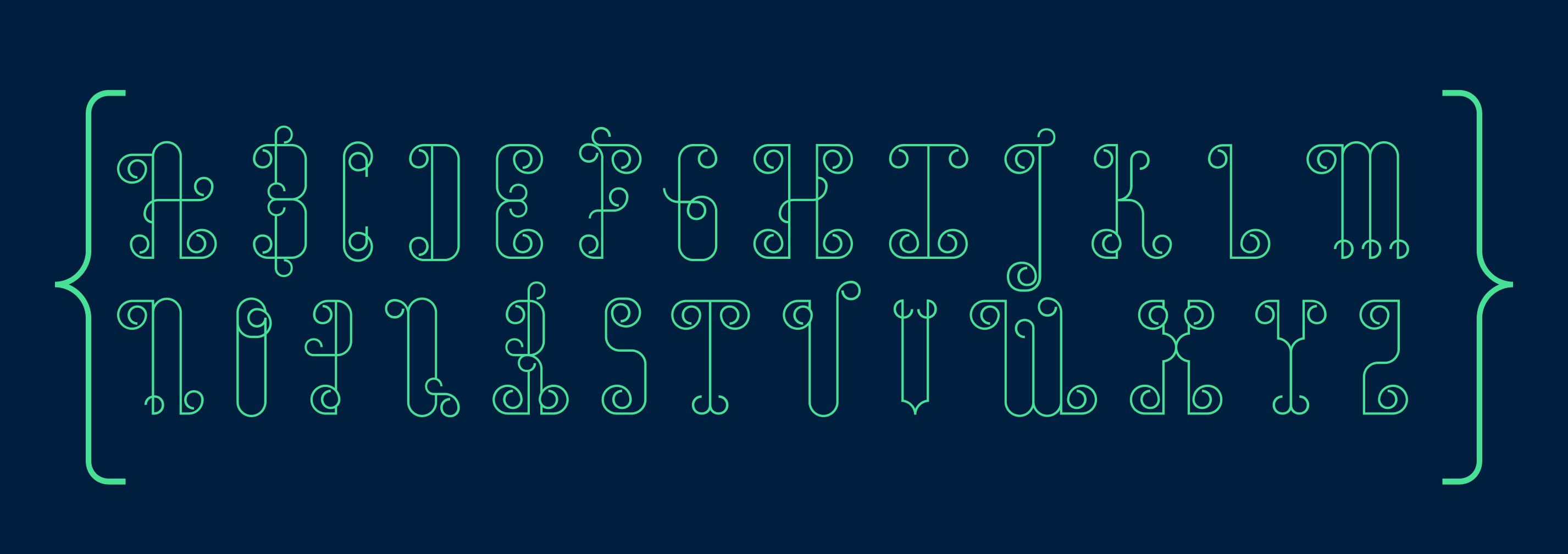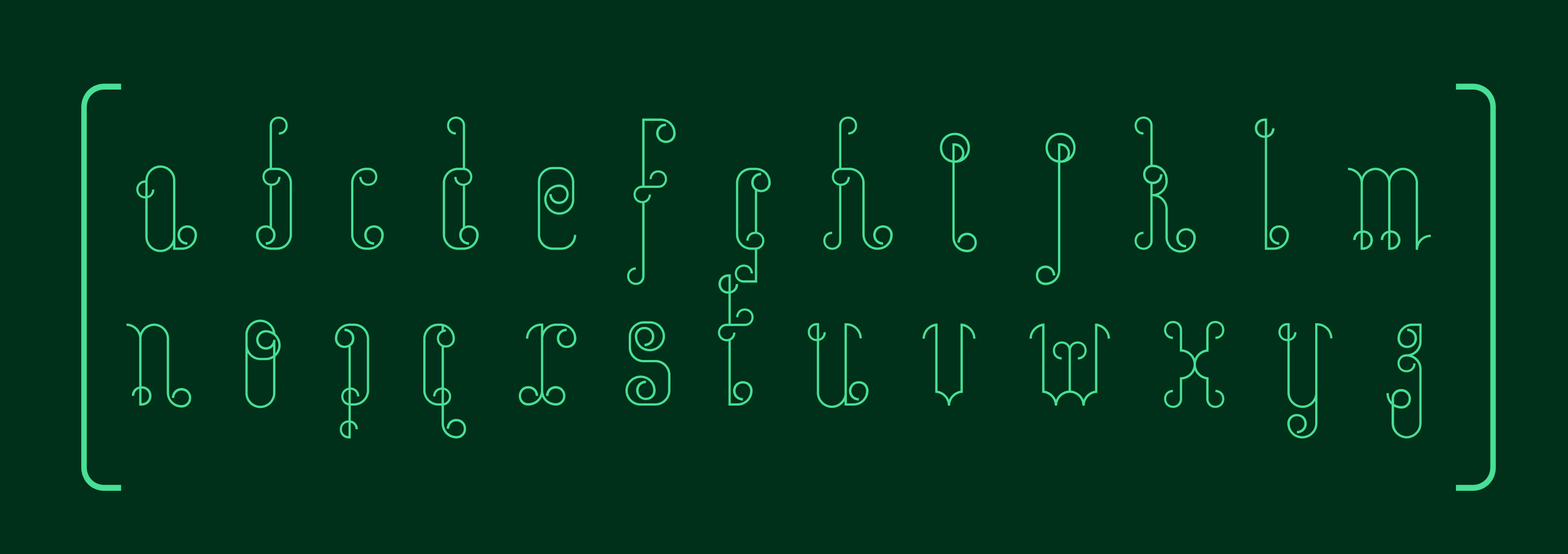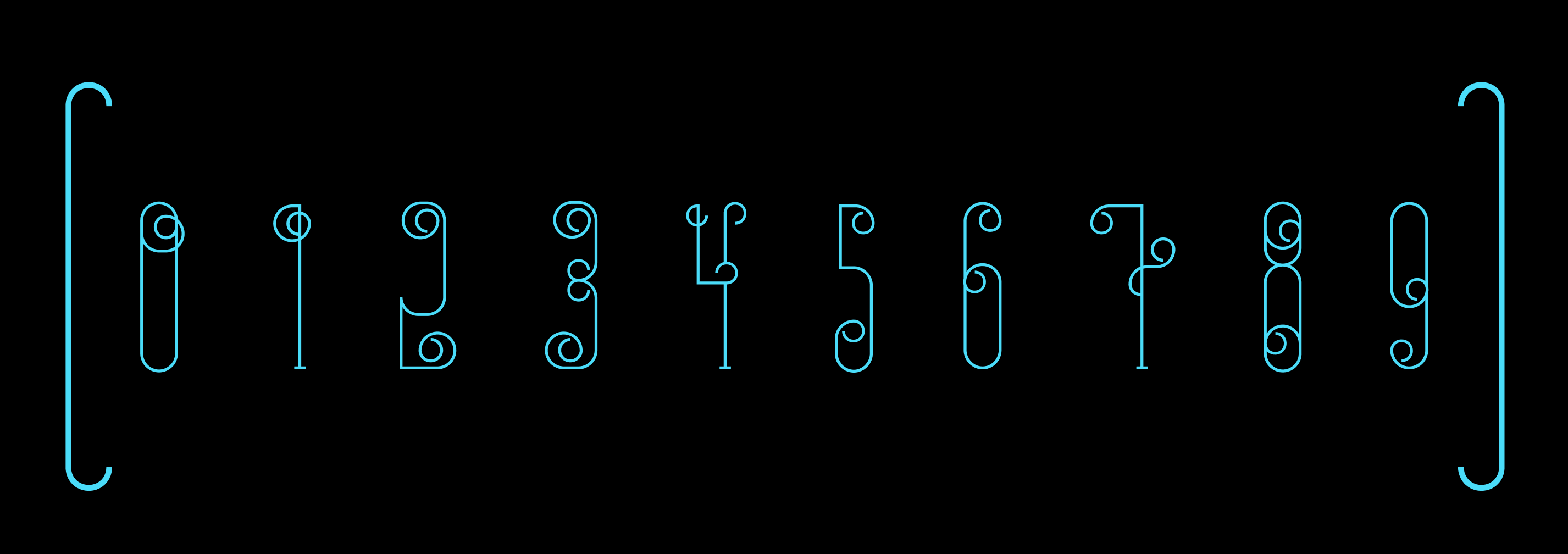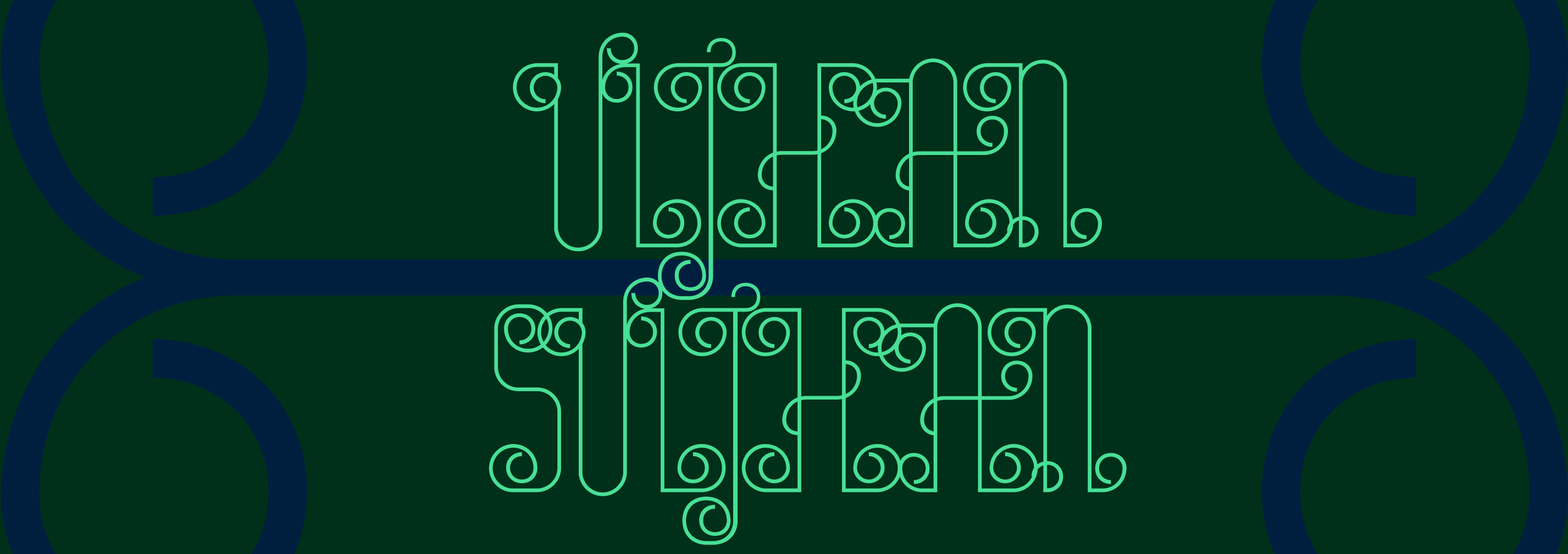
ULJHAN-SULJHAN SO-&-SO
About Uljhan-Suljhan (उलझन-सुलझन)
Uljhan is tangle. Suljhan is resolution.
Every letterform begins as a spiral, an entanglement, and resolves into something legible, while continues to untangle.
The spiral is more than ornamental. It is the letter arriving. Each stroke follows a continuous path through background, middle-ground, and foregrround, all curling at every terminus. The tangle and the resolution happen simultaneously, until the form completes itself and becomes readable.
Every letter speaks the same grammar. Draw the tangle. Find the form. One cannot be seen without the other.
Curl. Uncurl. Repeat.
Enjoy the process.